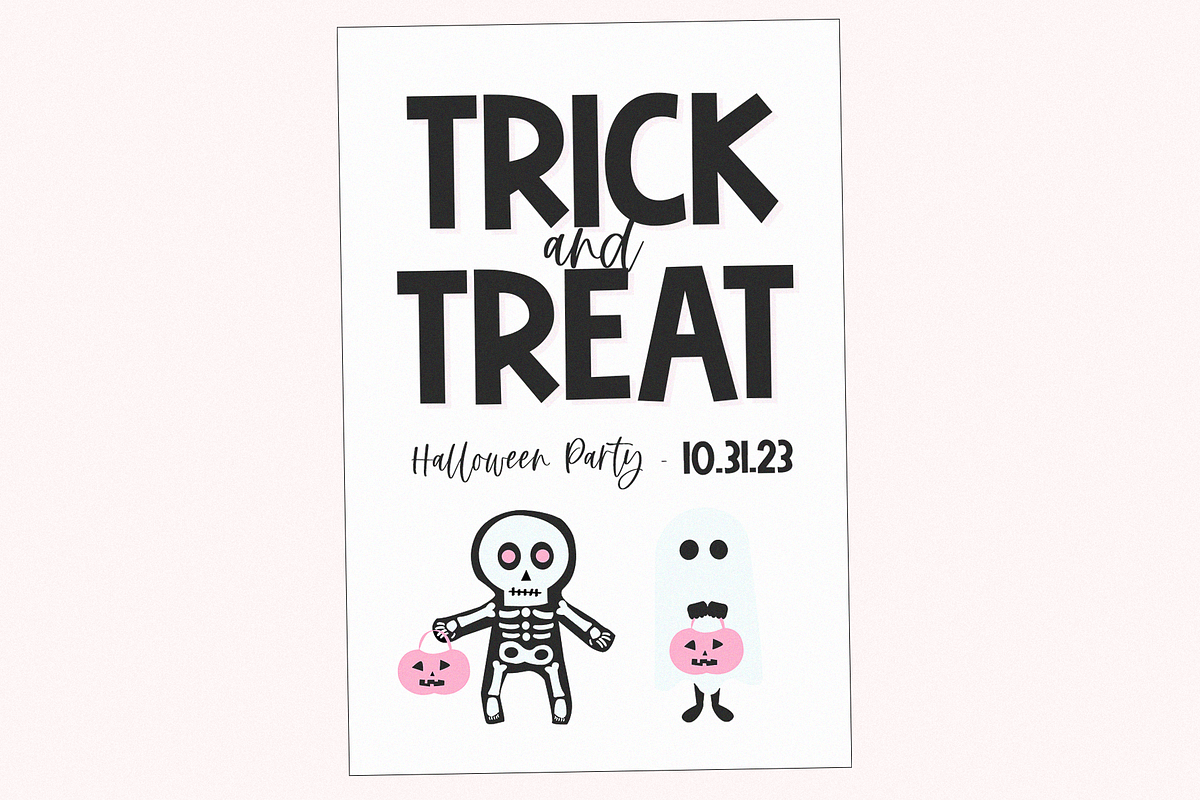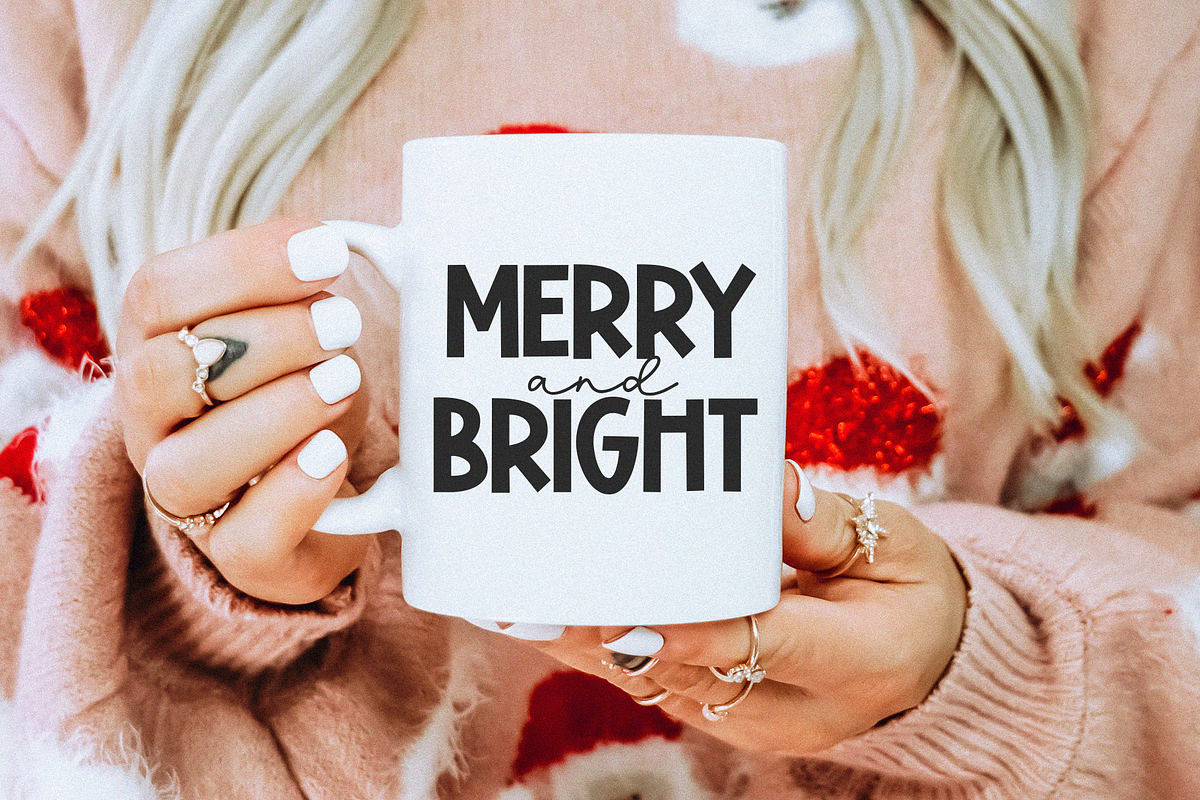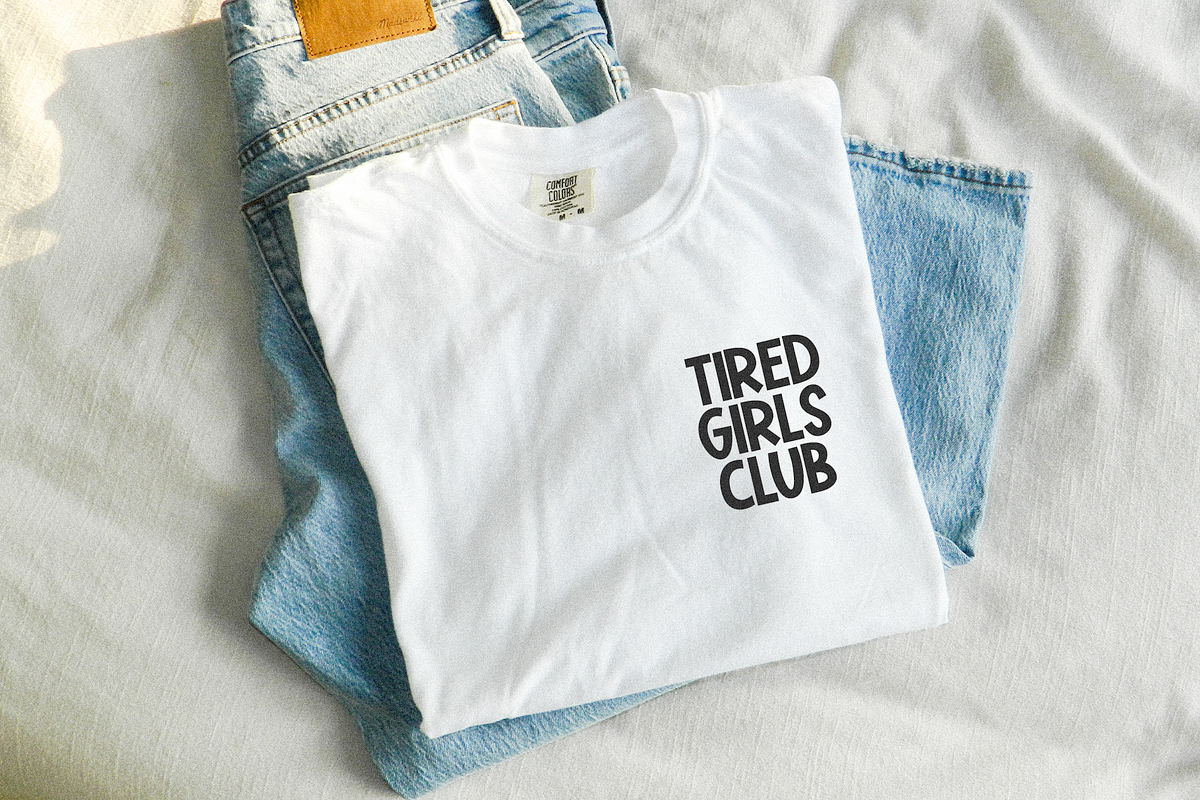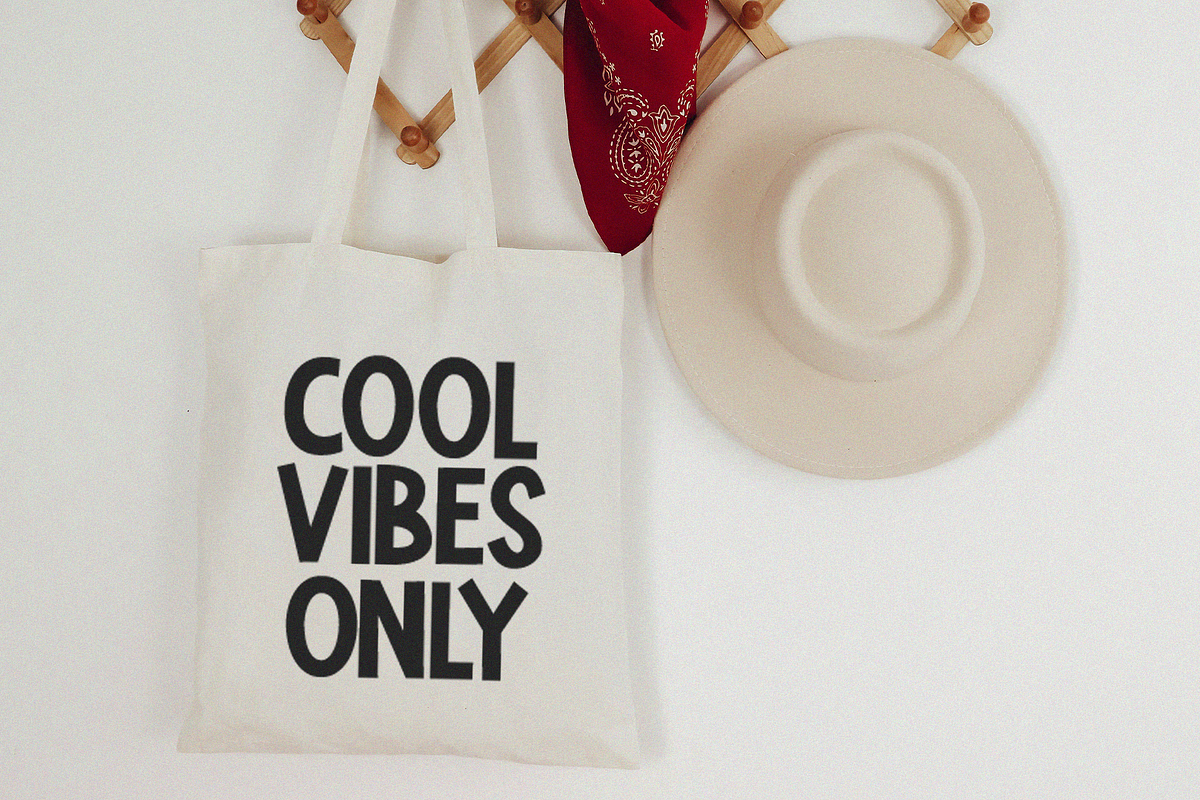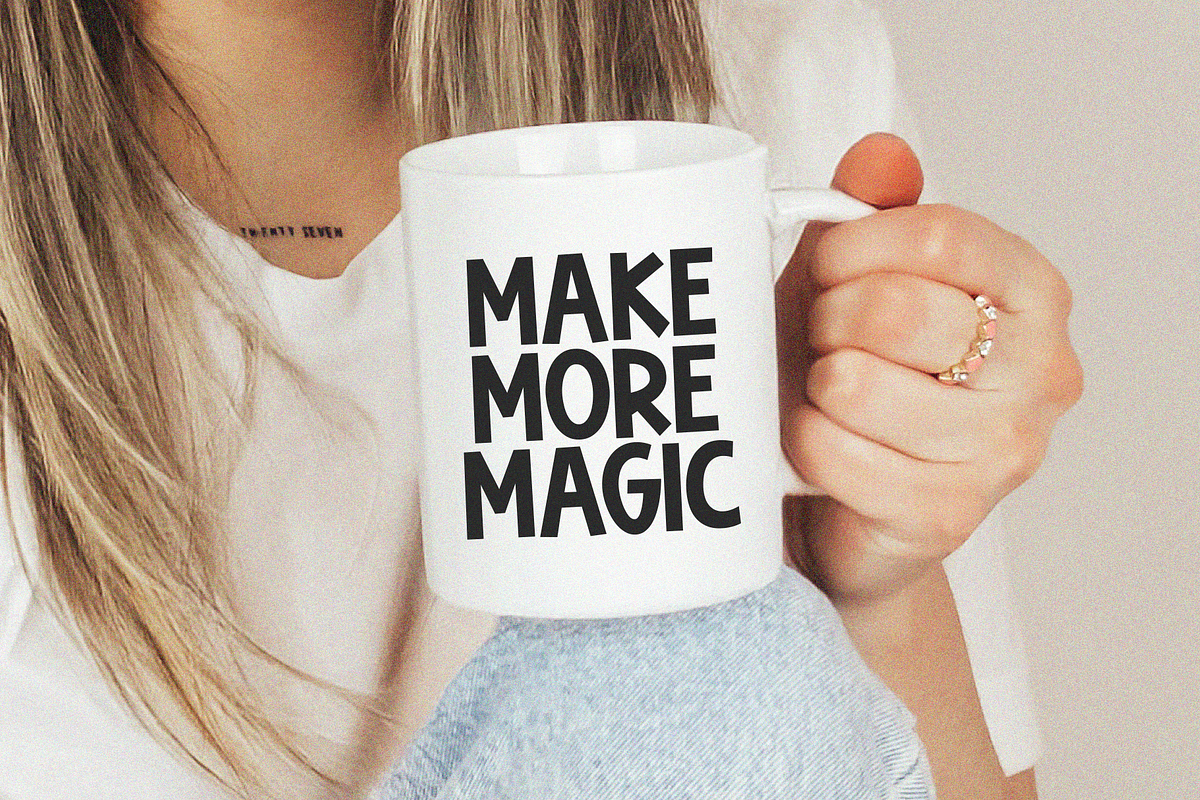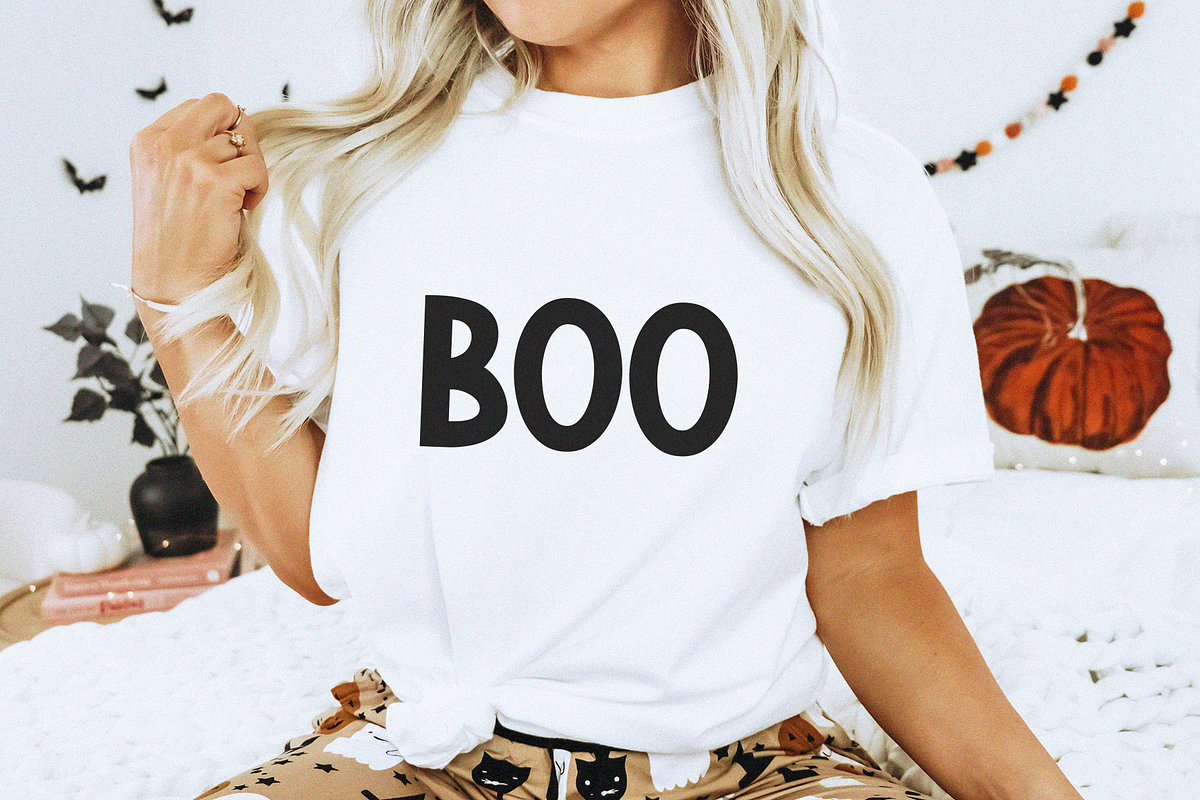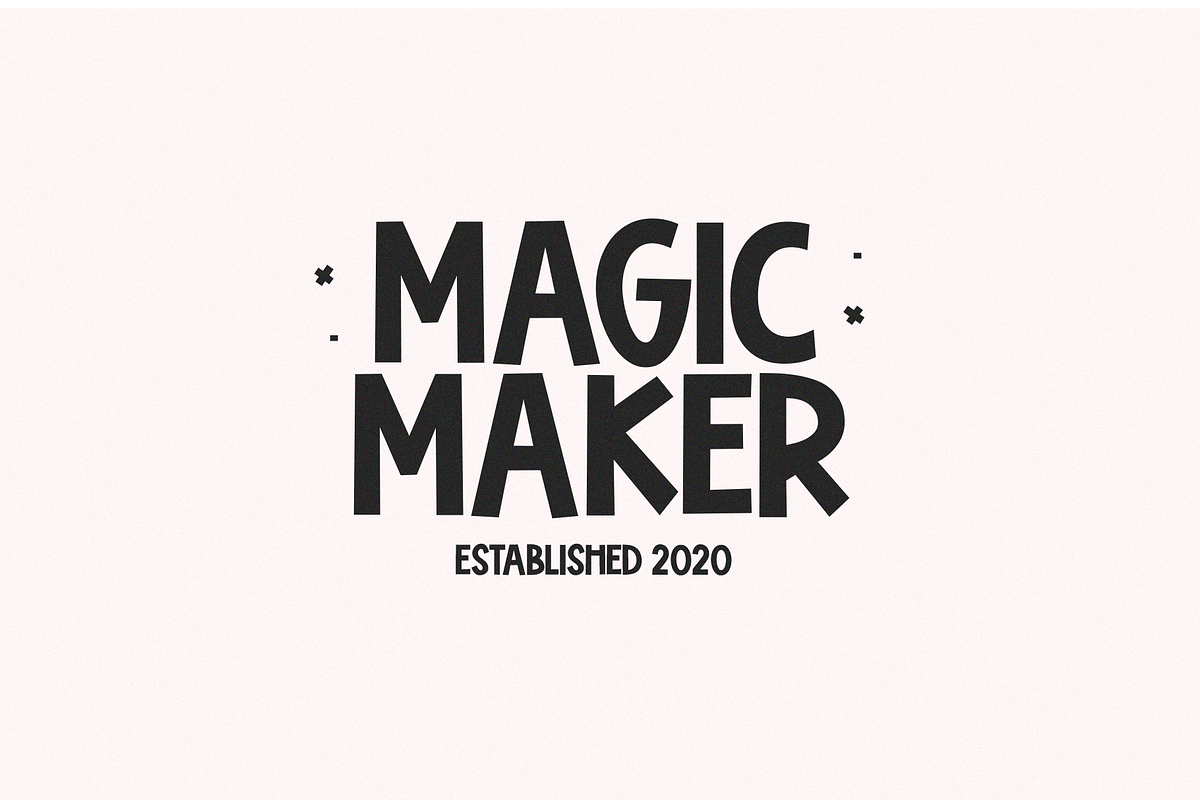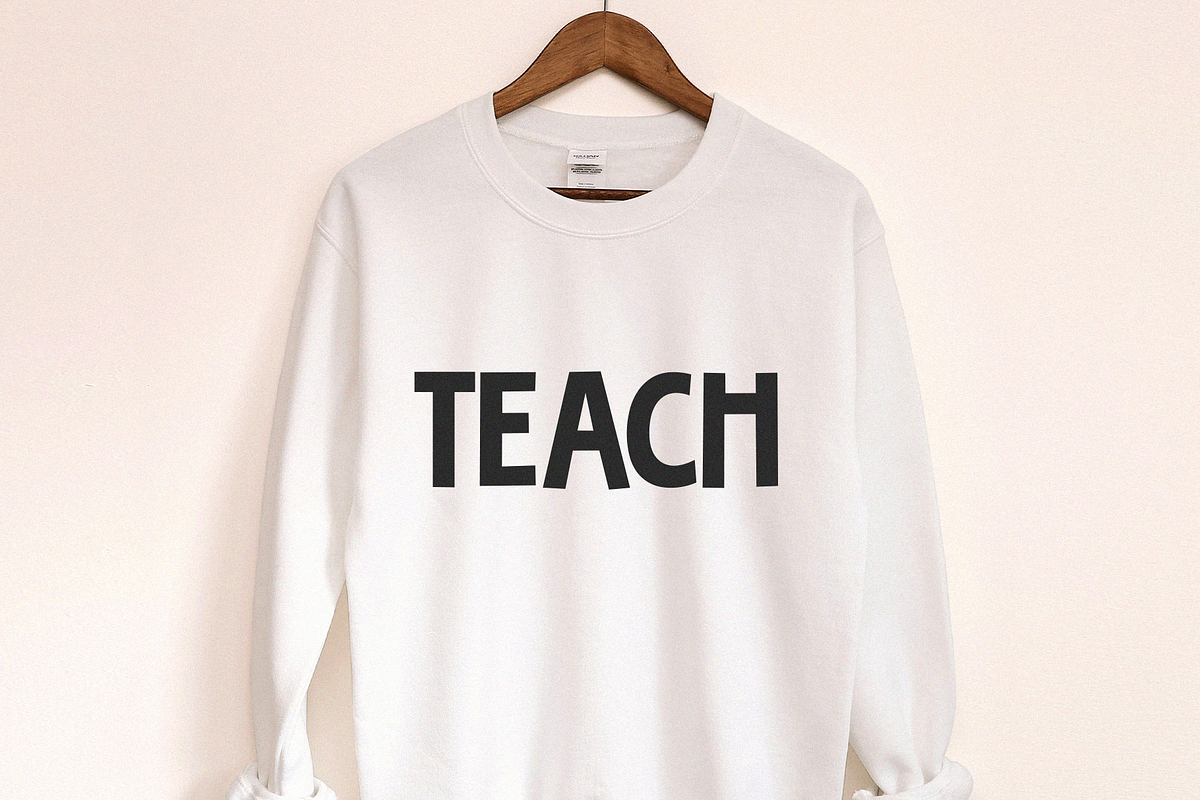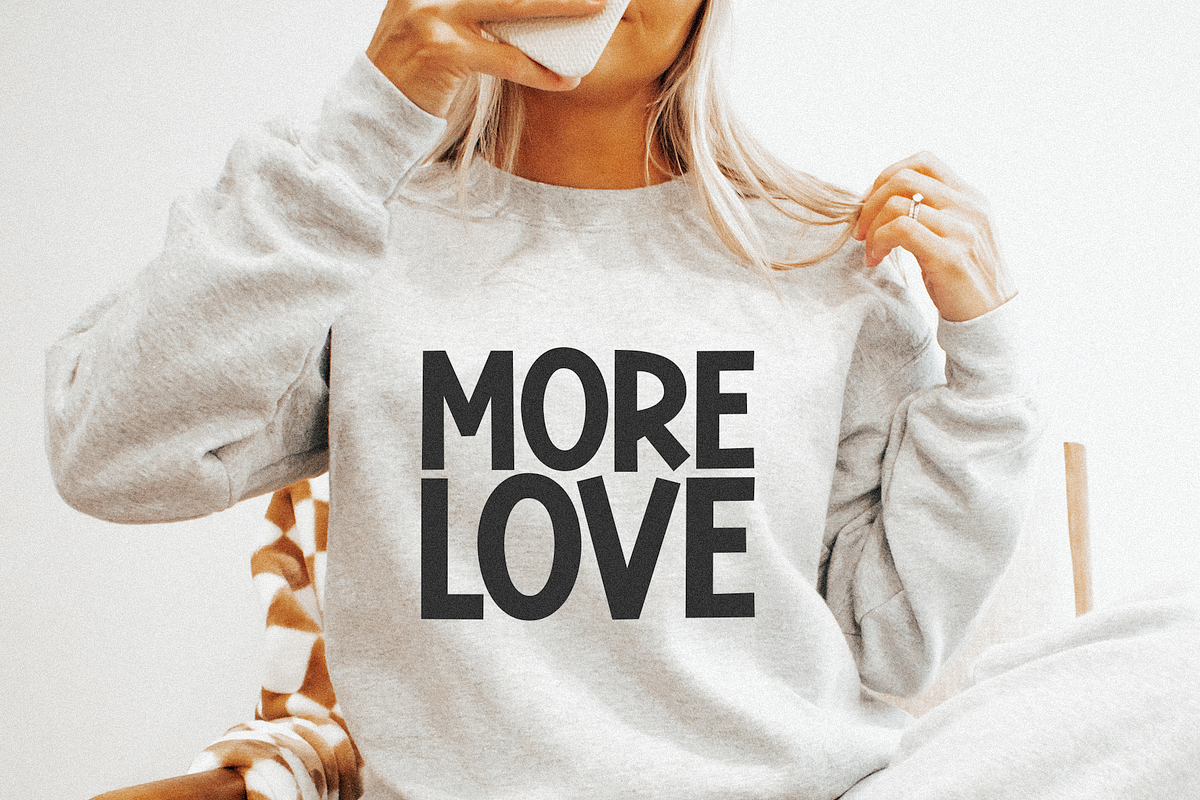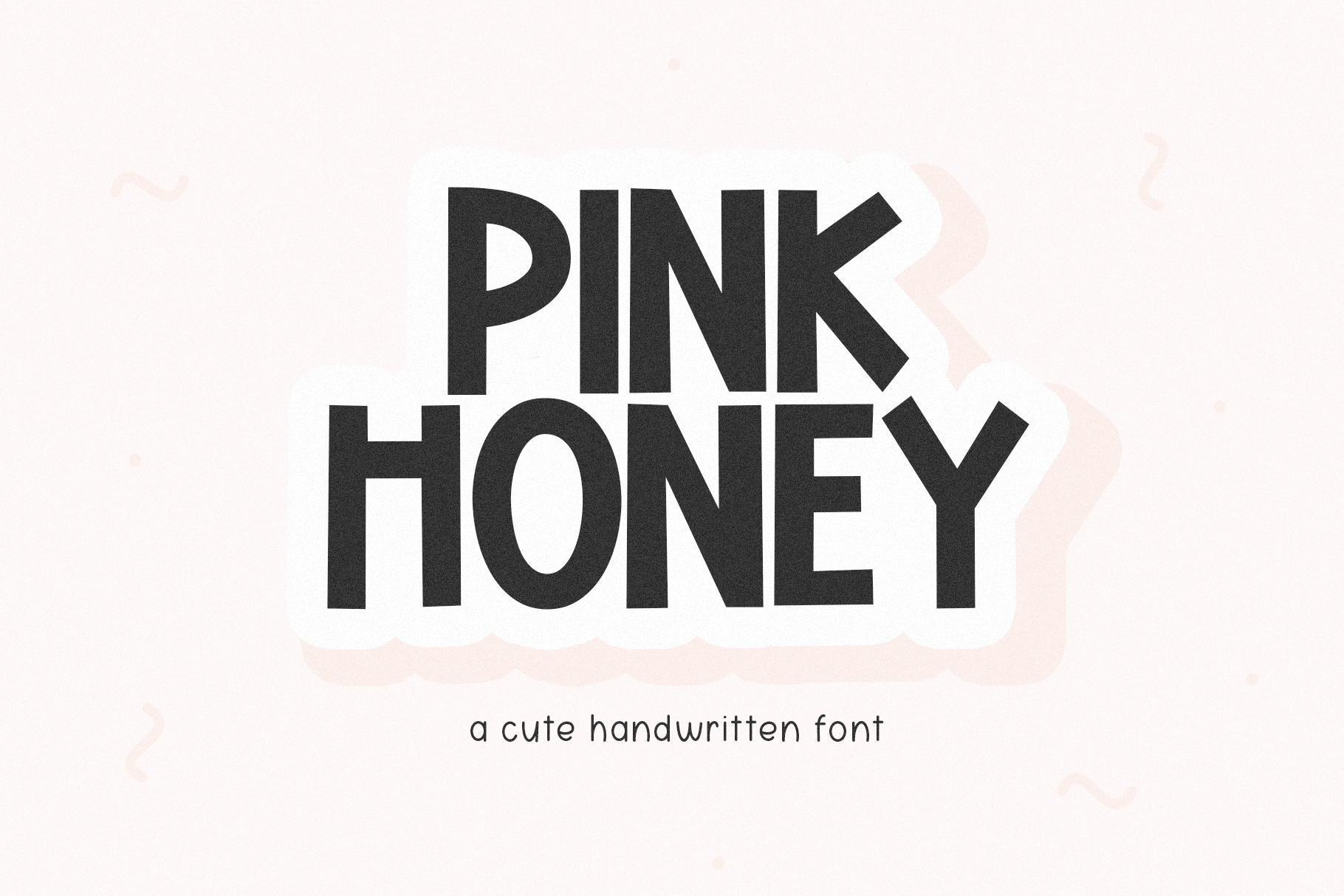
Pink Honey | Cute Block Font
Pink Honey is a fun handwritten font!
This font is perfect for svg files, logos, shirts, quotes, social media, craft projects, mugs, doormats, stickers and more!